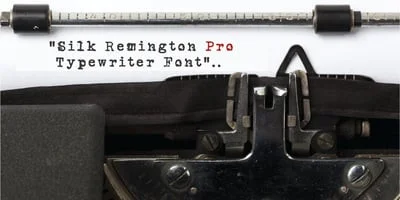
Silk Remington Pro Font
Silk Remington Pro Font is ideal for luxury fashion branding, high-end textile marketing, sophisticated magazine layouts, premium silk product packaging, elegant couture designs, refined lifestyle publications, and distinguished professional typography.
What makes Silk Remington Pro Font exciting is its silky smoothness and professional refinement, featuring luxurious letterforms that capture the essence of premium quality while delivering sophisticated visual elegance and textile authenticity.
The Silk Remington Pro Font family includes Ultra Light, Light, Regular, Medium, Bold, and Black weights, plus condensed variants and professional alternates that enhance the font's sophisticated character and luxury possibilities.
Silk Remington Pro Font embodies the ultimate expression of luxury typography and the refined elegance of premium textile craftsmanship through sophisticated design excellence. This exquisite typeface captures the smooth luxury of fine silk and the professional precision of high-end fashion design, creating a sophisticated visual language that speaks to luxury brands and fashion professionals who value premium quality, textile excellence, and the distinguished appeal of professional luxury typography. The font's silky character and professional appearance make it perfect for luxury fashion houses, premium textile companies, and sophisticated publications that want to communicate excellence, refinement, and the compelling appeal of luxury professional design.
Luxury fashion brands and premium textile companies consistently choose Silk Remington Pro Font for projects that require authentic luxury credibility and professional visual excellence. The typeface's sophisticated construction and premium personality make it exceptionally effective for high-end fashion magazines, luxury textile manufacturers, and professional design studios where luxury quality and professional sophistication are paramount. Each character has been crafted with professional precision to ensure maximum elegance across all luxury applications and sophisticated environments.
The professional advantages of Silk Remington Pro Font extend beyond its luxury appeal to include comprehensive functionality for diverse premium applications. The font maintains exceptional legibility in high-end publications while delivering the distinctive character that creates memorable luxury experiences and connects with audiences seeking authentic professional quality. Its comprehensive character set includes luxury symbols and professional elements that make it particularly suitable for premium documentation and sophisticated communication.
High-end fashion houses, luxury textile manufacturers, and professional design publications frequently incorporate Silk Remington Pro Font into their brand identity systems because of its ability to instantly convey luxury authenticity and professional sophistication. The typeface's silky aesthetic helps establish credibility in competitive luxury markets while appealing to clients who value premium quality, professional excellence, and the distinguished experiences that come from authentic luxury craftsmanship and professional design sophistication.